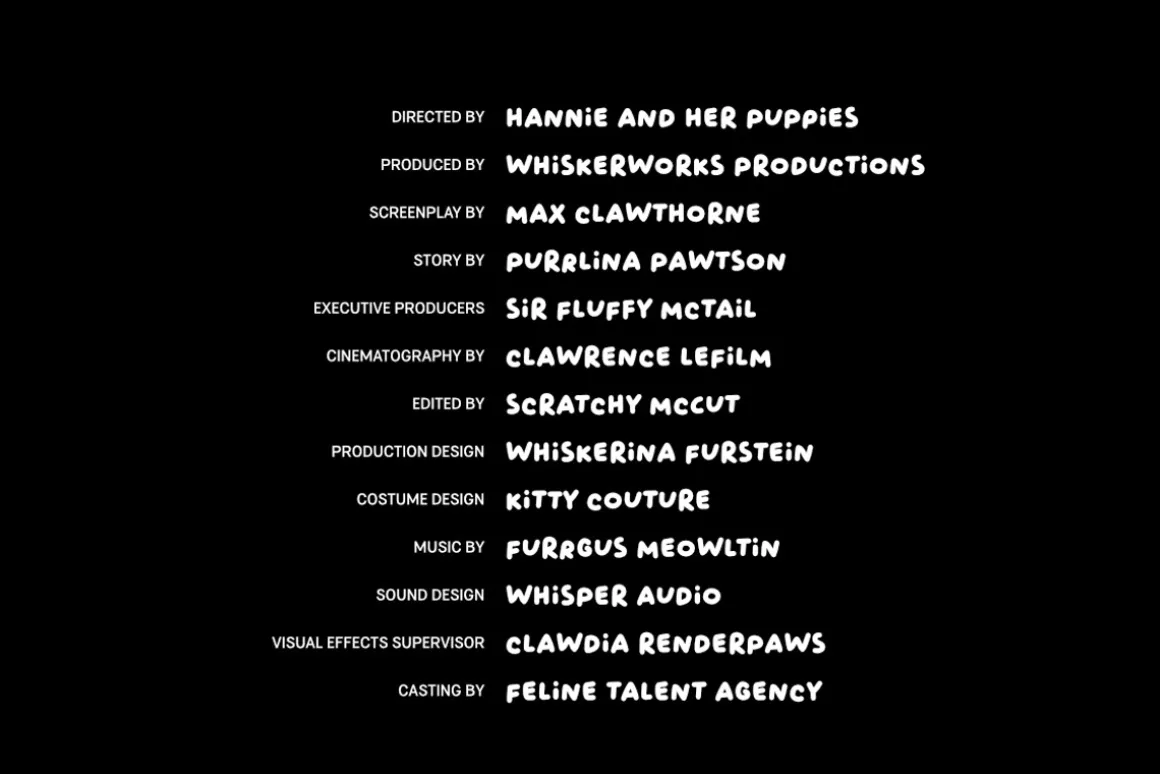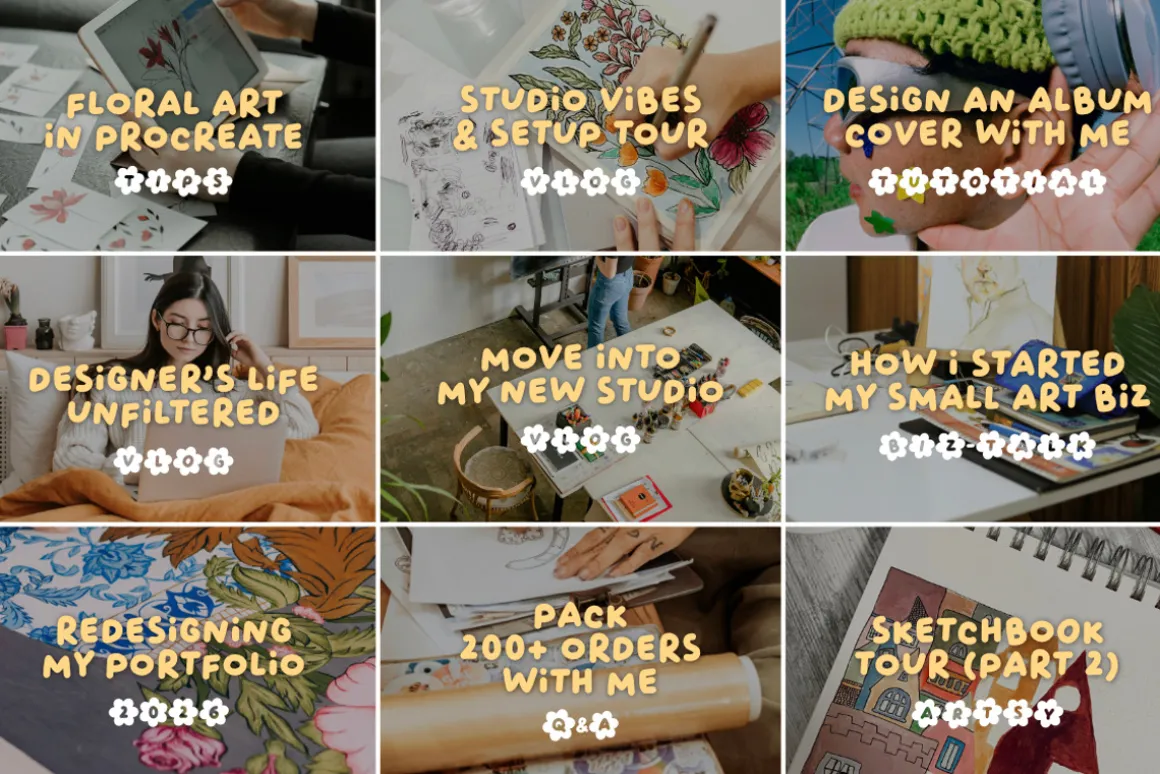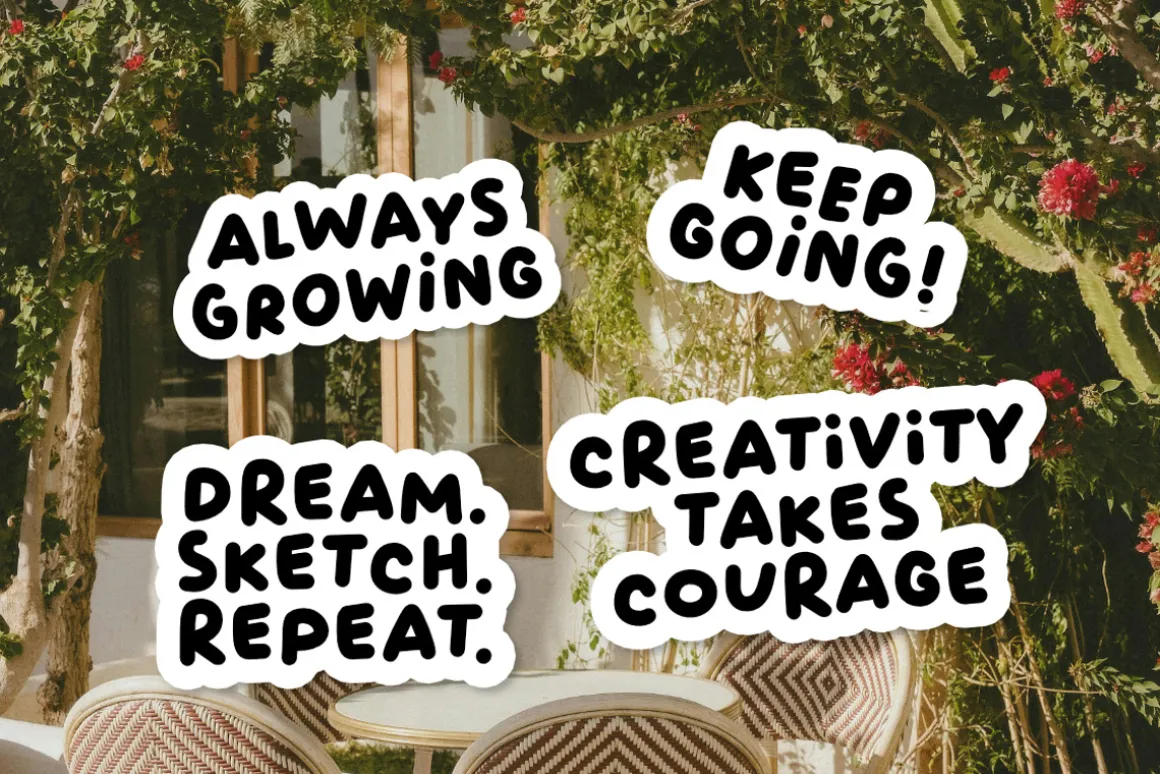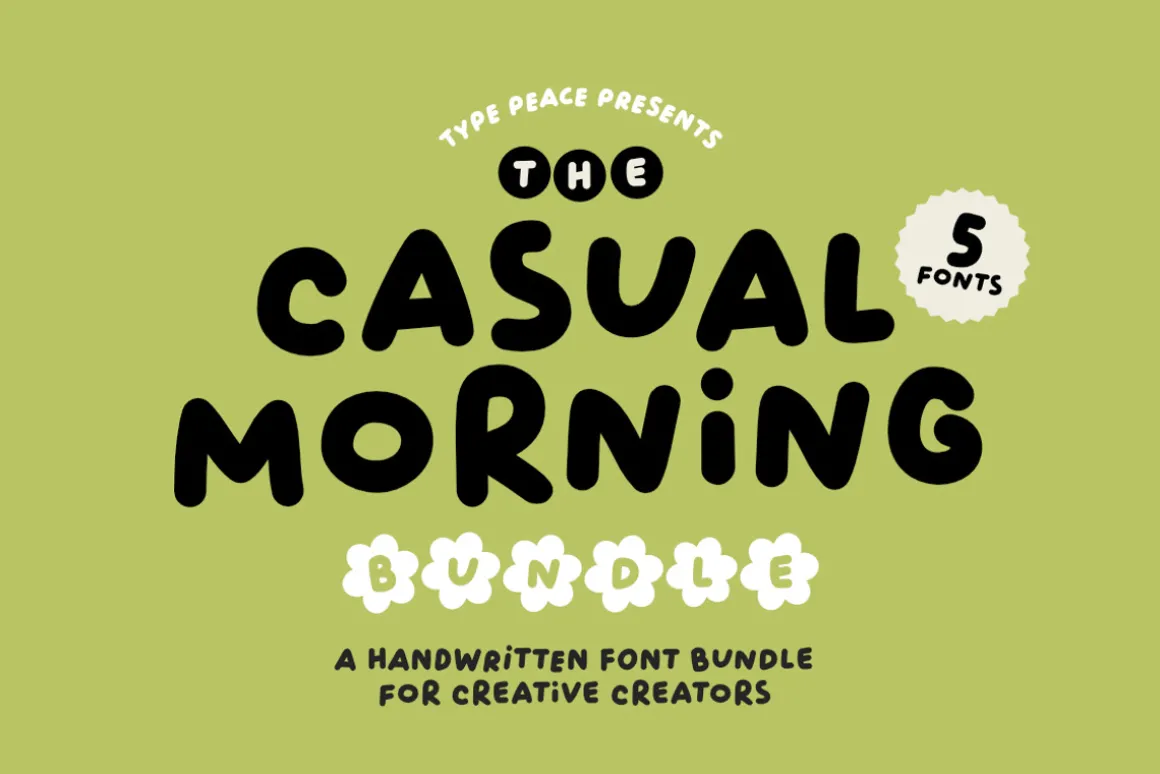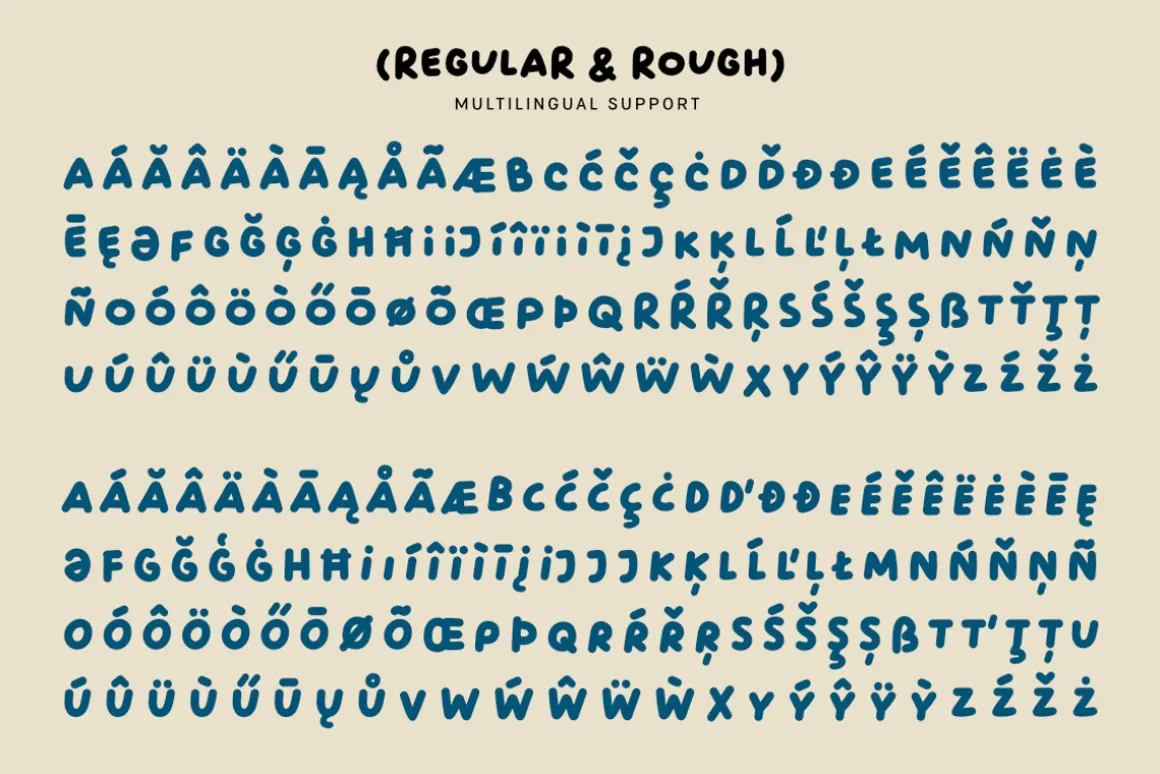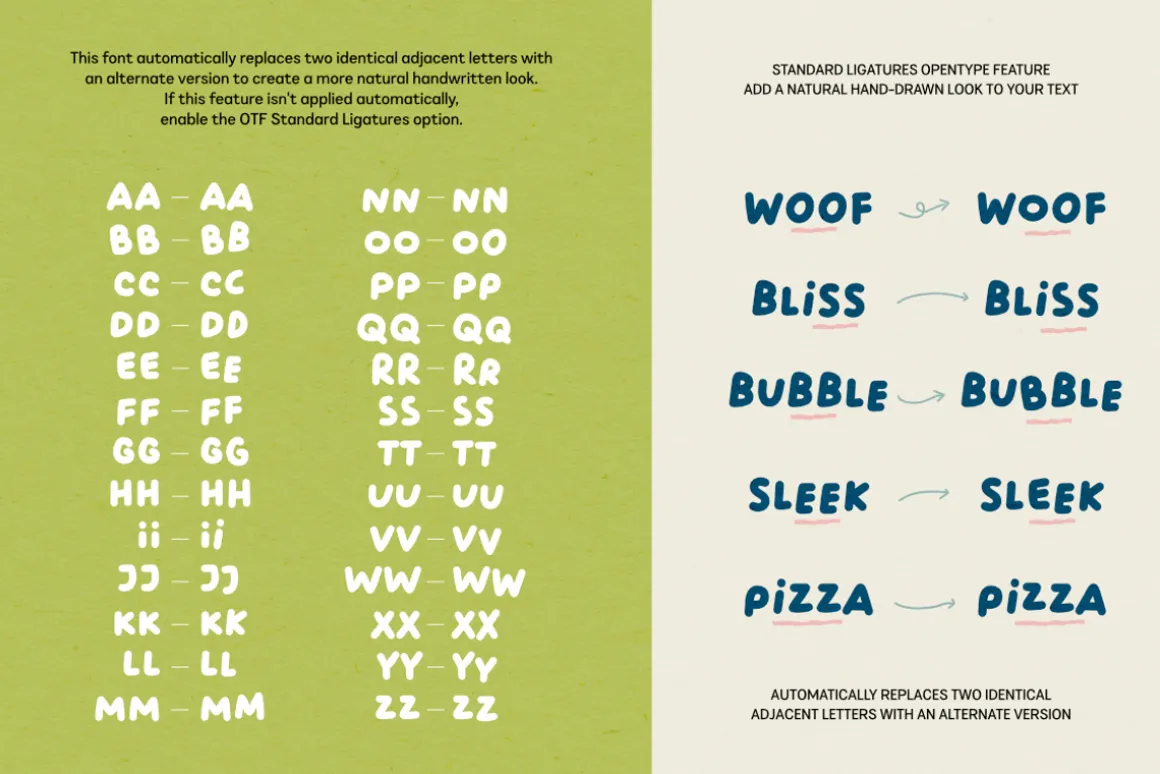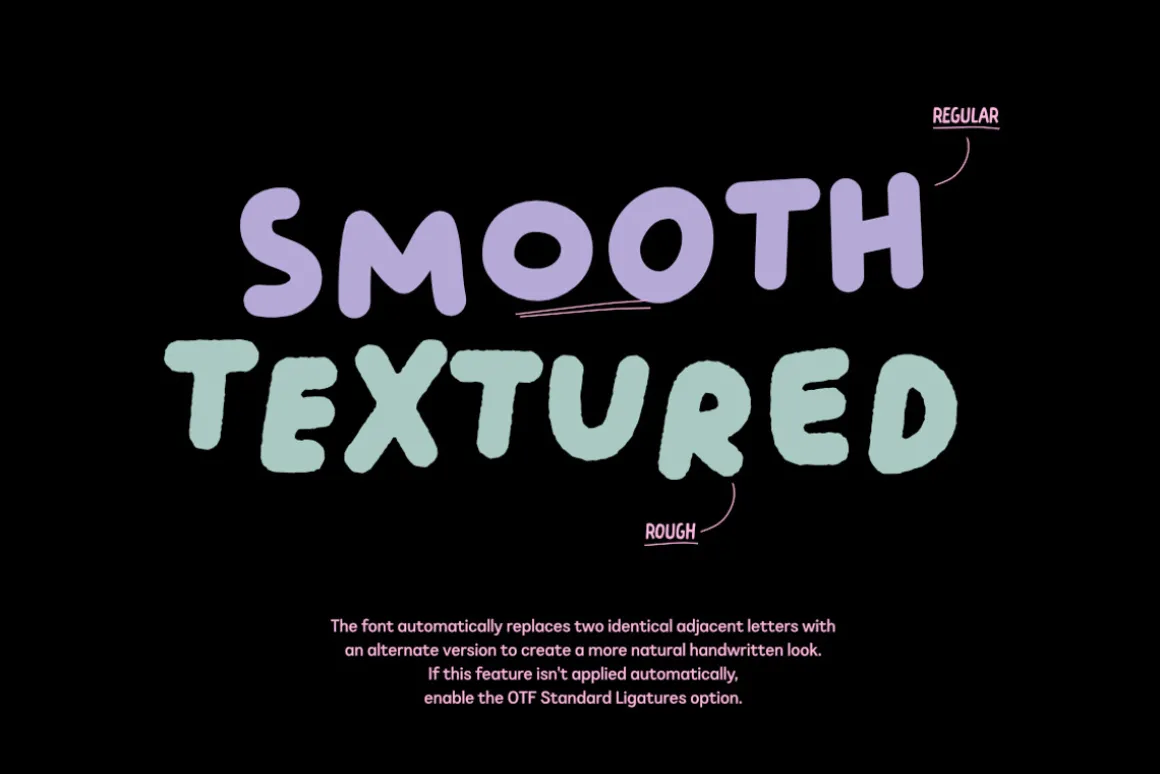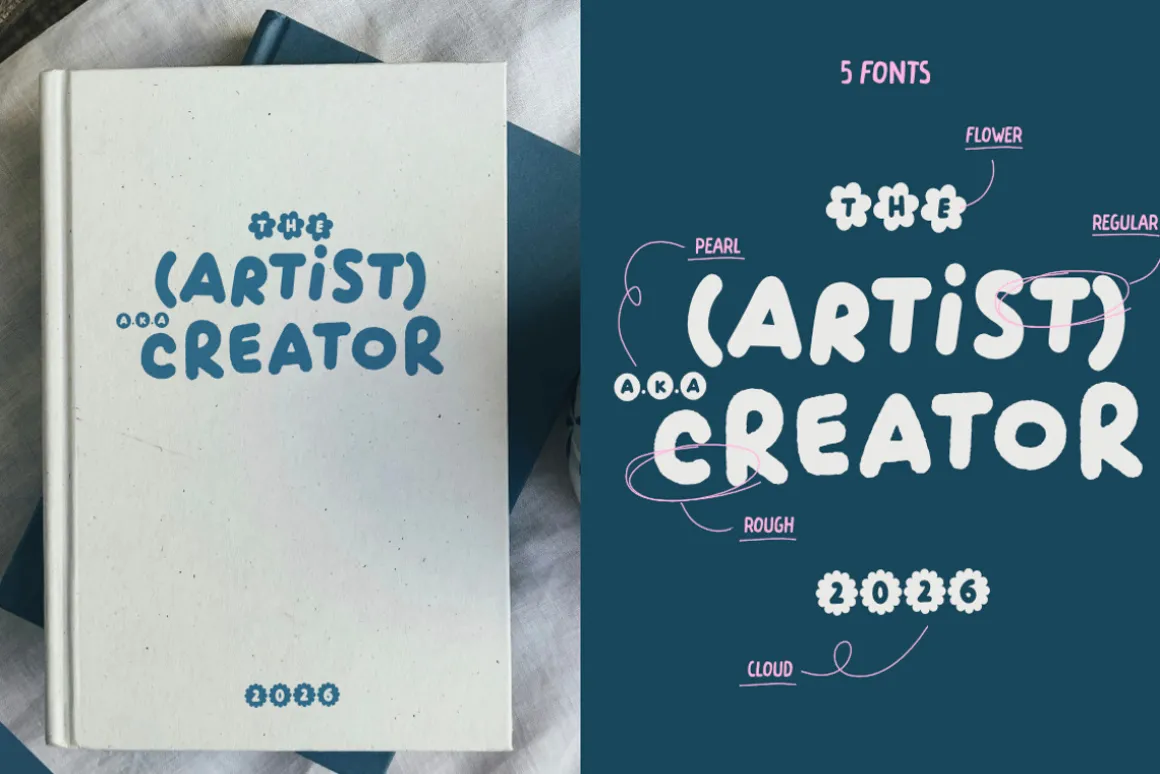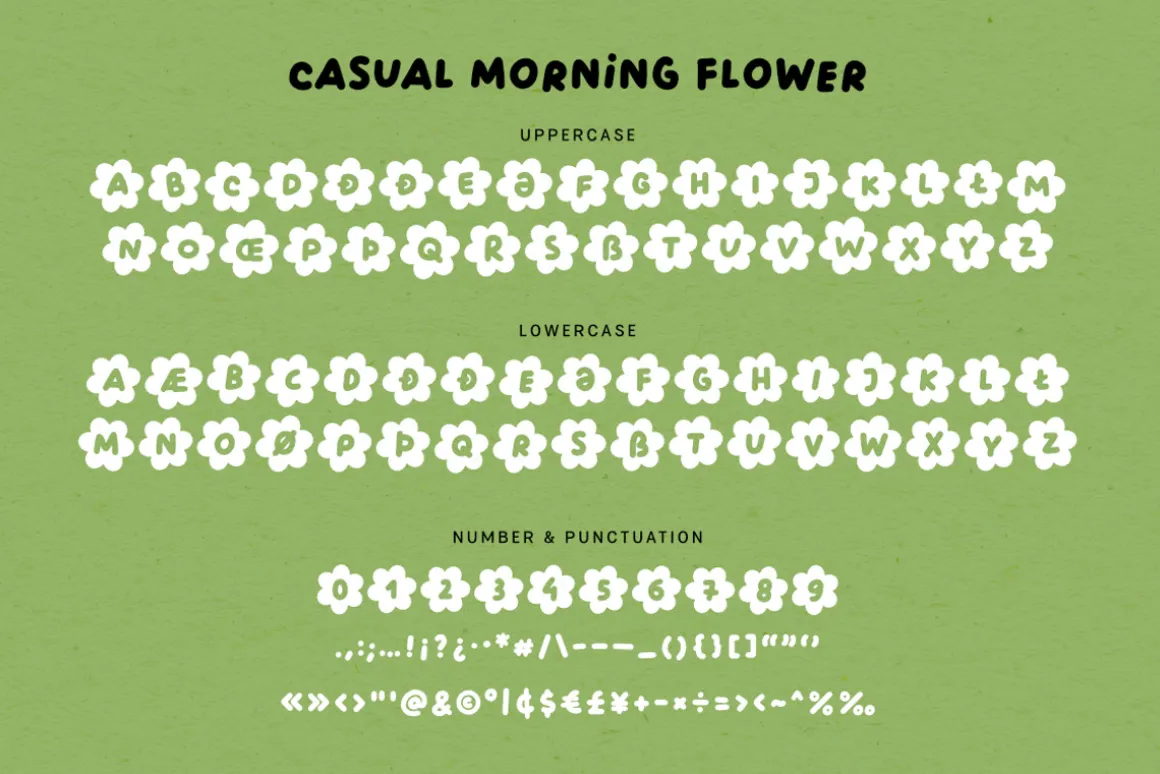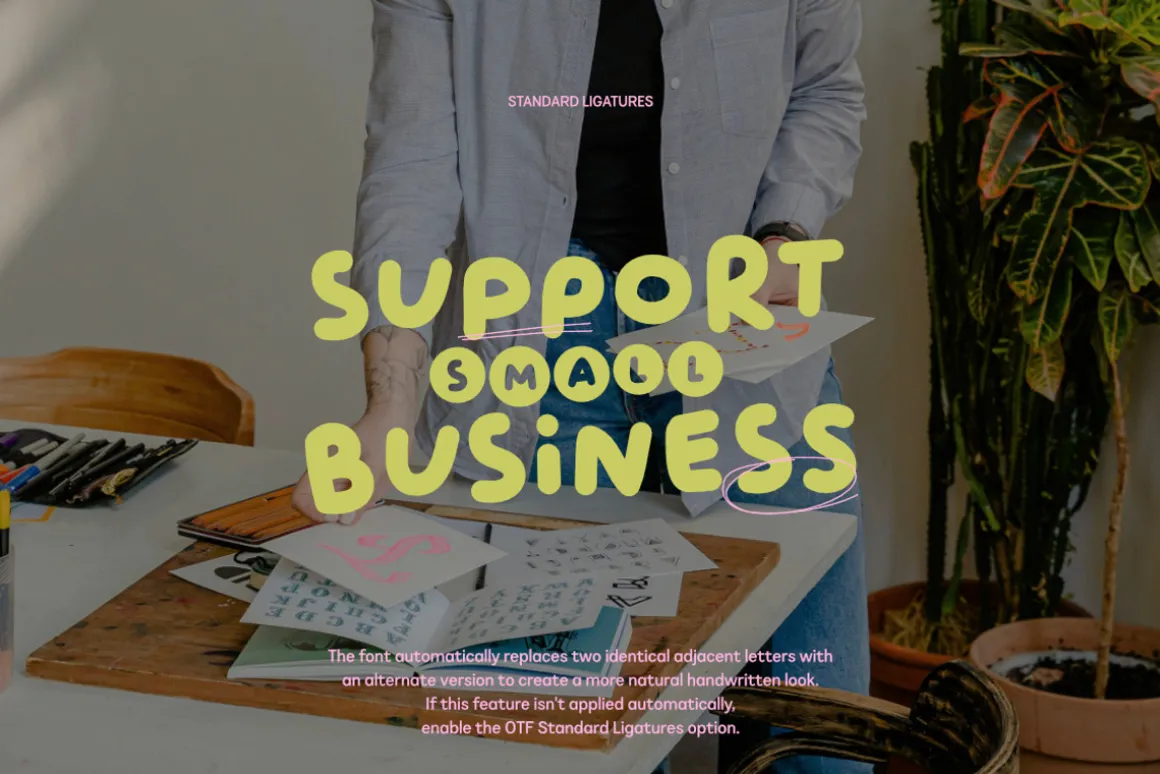
CASUAL MORNING is a bold and playful all-caps handwritten font family that brings a youthful, dynamic charm to your designs.With 5 unique styles – Regular and Rough for titles and text, plus Cloud, Pearl, and Flower for decorative accents – CASUAL MORNING offers creative versatility in one cohesive package.
Featuring multilingual support, it’s perfect for eye-catching social media thumbnails, fun branding, and expressive design projects that need a touch of personality.
The font automatically replaces two identical adjacent letters with an alternate version to create a more natural handwritten look. (If this feature isn’t applied automatically, enable the OTF Standard Ligatures option.)
Font features:
- All-cap
- 2 versions of each letter
- Numbers, marks and symbols
- Multilingual support
- Opentype features: Standard Ligatures
Script: Latin
Supported Languages (Regular & Rough):English, Western European, Central European, South Eastern European